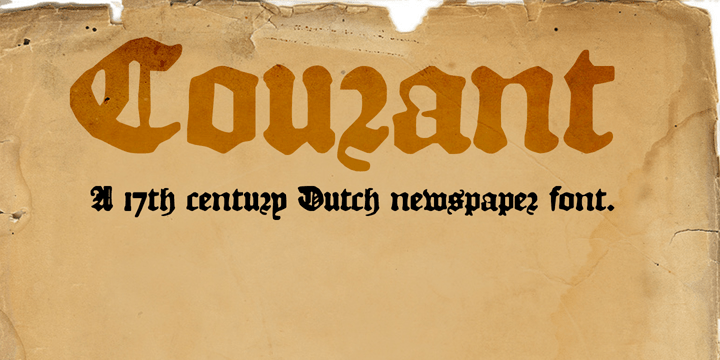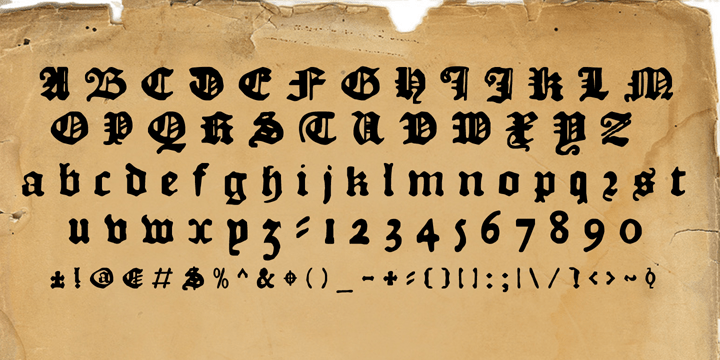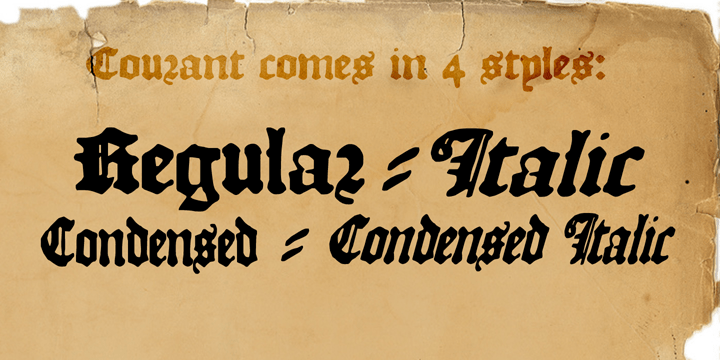
Courant
Font Family by Hanoded
Courant font was modeled on 17th century Dutch newspapers and most of the glyphs are authentic. The "modern" glyphs, like @, $, ?, * and several others have been designed by me, as they were not in use in the 1600's.